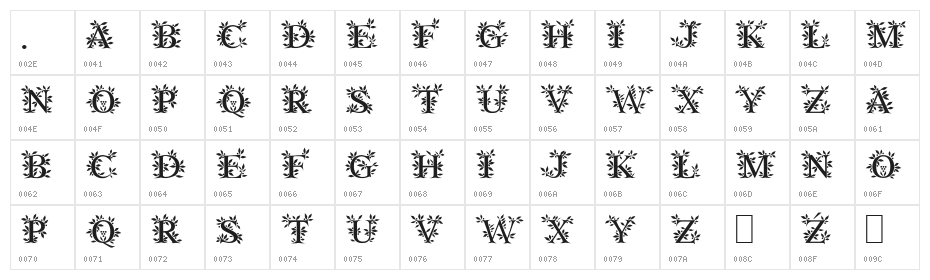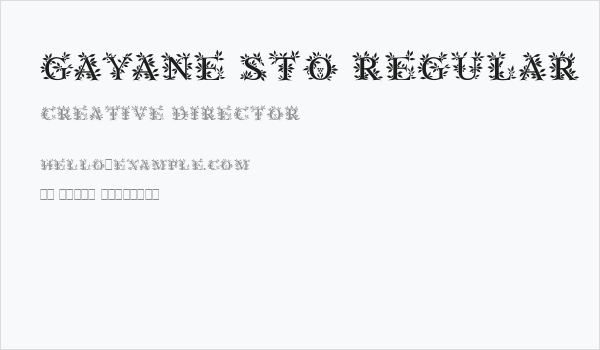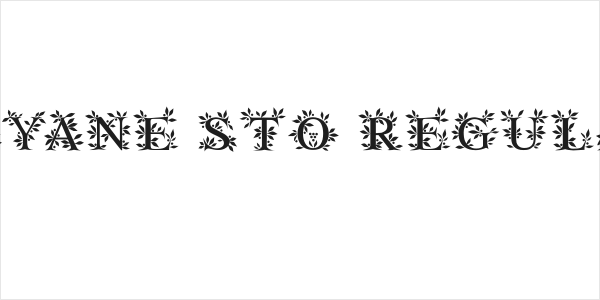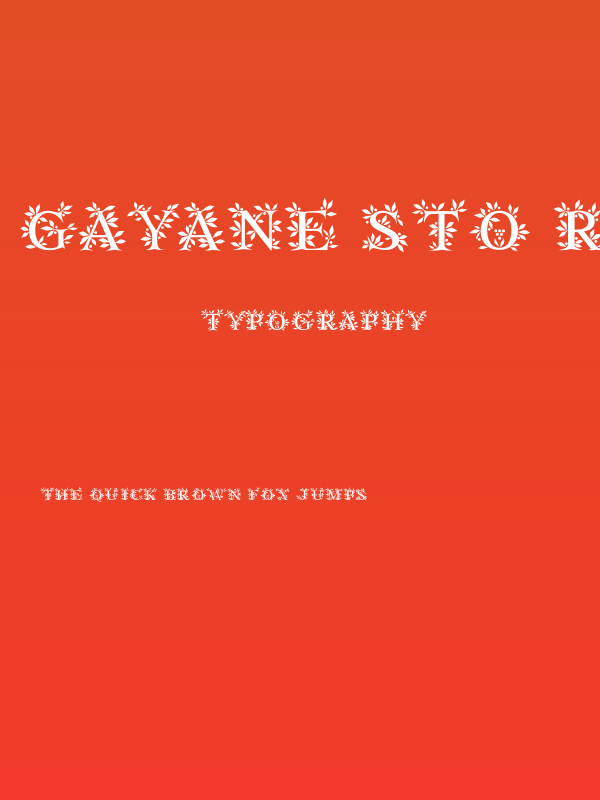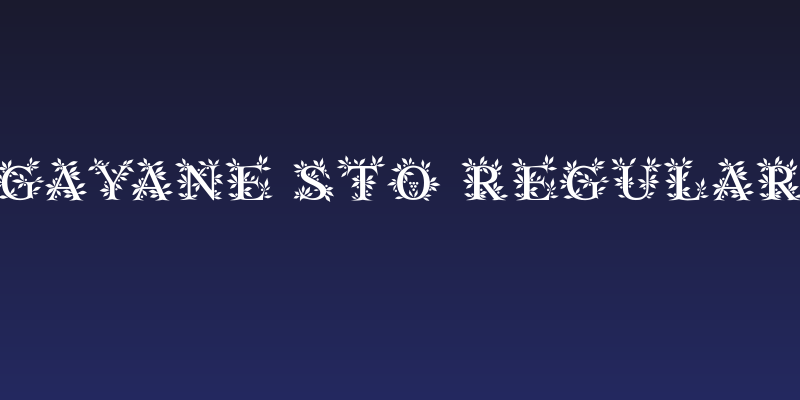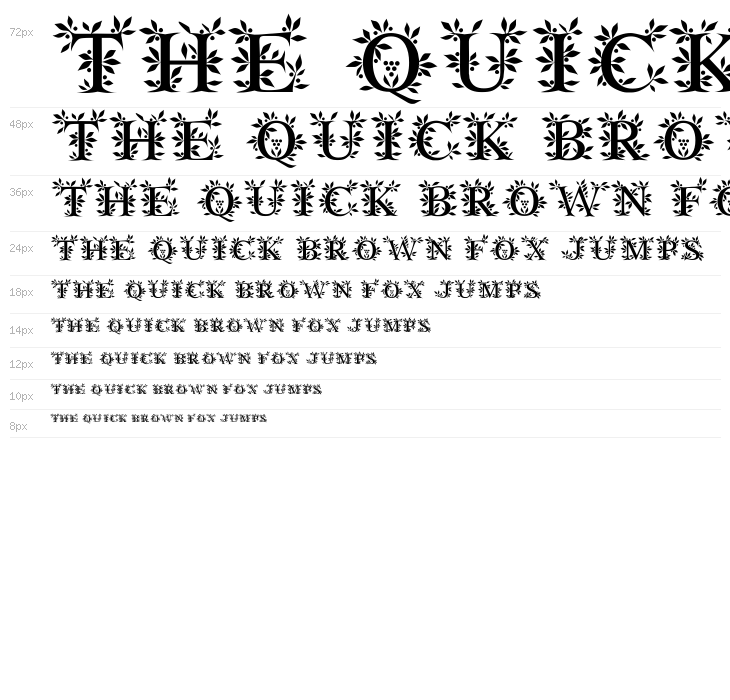
Gayane StO Regular Font
Gayane StO Regular Description
This font features an intricate and decorative design, with each character adorned with floral and leaf-like embellishments. The uppercase letters are bold and striking, making a strong visual impact. The detailed ornamentation gives it a unique and artistic flair, suitable for creative and expressive projects. The font maintains a consistent style across all characters, ensuring a cohesive look. Its decorative nature makes it ideal for use in designs that require a touch of elegance and sophistication.
Proposed ProjectsIdeal for wedding invitations, greeting cards, event posters, and artistic branding.